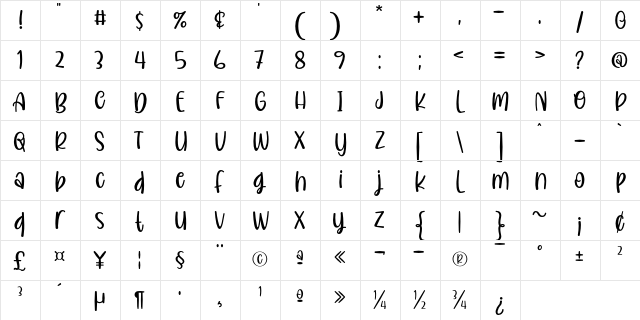
Royela Regular
| Foundry | 7NTypes |
| Designer | Keithzo; Situjuh Nazara |
Design Context for Royela Typeface
Royela is a composed and adaptable typeface that performs quietly and consistently across a wide range of design contexts.